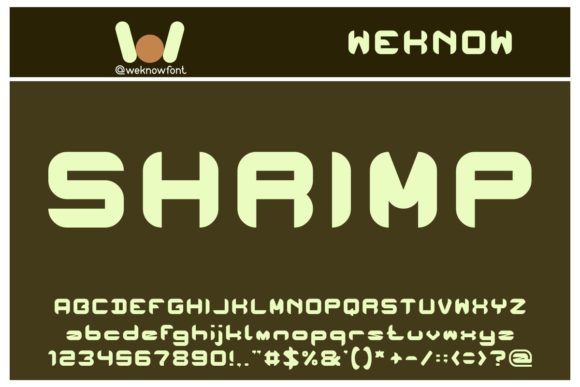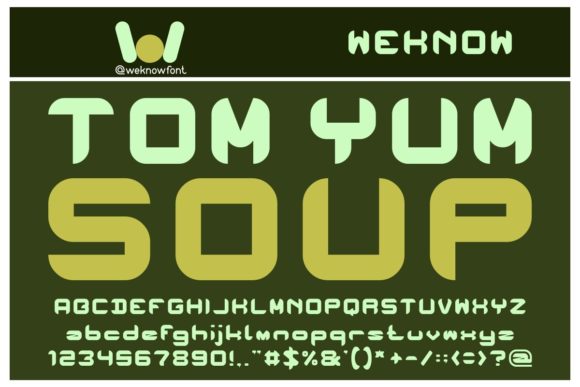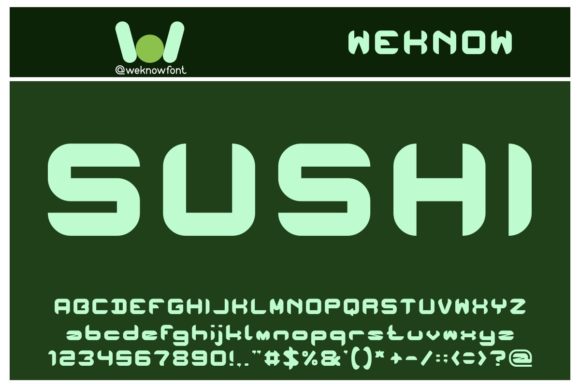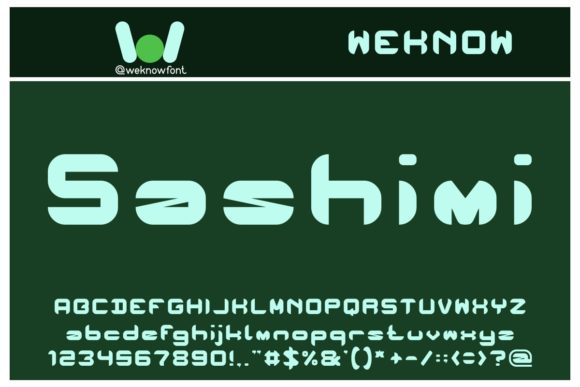
Bento Font: Elevate Your Designs with a Fancy Display Font
Are you a designer or crafter looking for a unique and stylish font to elevate your creative projects? Look no further than Bento Font, a fancy display font that’s perfect for a wide range of applications. In this article, we’ll explore the features and benefits of Bento Font, and show you how it can be used to take your designs to the next level.
What is Bento Font?
Bento Font is a modern, sans-serif display font that’s designed to make a statement. Its sleek lines, elegant curves, and sophisticated style make it perfect for use in logos, headlines, and other high-impact design elements. Whether you’re working on a corporate identity, brand identity, or personal project, Bento Font is sure to impress.
Key Features of Bento Font
- Fancy Display Font: Bento Font is designed to be eye-catching and attention-grabbing, making it perfect for use in headlines, titles, and other high-impact design elements.
- Versatile: Bento Font can be used in a wide range of applications, including logos, corporate identity, brand identity, apparel industry, posters, music, movies, games, magazines, books, comics, cartoons, YouTube, Instagram, websites, and more.
- Elegant and Sophisticated: Bento Font features sleek lines, elegant curves, and a sophisticated style that’s perfect for designs that require a touch of class and elegance.
- Easy to Read: Despite its fancy design, Bento Font is easy to read, even at smaller sizes, making it perfect for use in body text and other applications where legibility is important.
Use Cases for Bento Font
Bento Font is a versatile font that can be used in a wide range of applications. Here are some examples of how you can use Bento Font in your designs:
- Logos and Branding: Bento Font is perfect for use in logos, trademarks, and other brand identity elements.
- Headlines and Titles: Use Bento Font to create eye-catching headlines and titles that grab attention and draw the reader in.
- Posters and Flyers: Bento Font is perfect for use in posters, flyers, and other high-impact marketing materials.
- Apparel and Merchandise: Use Bento Font to create stylish and eye-catching apparel and merchandise, such as t-shirts, hats, and tote bags.
- Digital Media: Bento Font can be used in digital media, such as YouTube videos, Instagram posts, and website headers.
Tips for Using Bento Font
Here are some tips for getting the most out of Bento Font:
- Use it sparingly: Bento Font is a bold and eye-catching font, so use it sparingly to avoid overwhelming the reader.
- Pair it with a simple font: Pair Bento Font with a simple font, such as Arial or Helvetica, to create visual interest and contrast.
- Experiment with different sizes and colors: Experiment with different sizes and colors to find the perfect combination for your design.
Bento Font is a versatile and stylish font that’s perfect for designers and crafters looking to elevate their creative projects. With its elegant and sophisticated design, Bento Font is sure to make a statement in any application. Whether you’re working on a logo, headline, poster, or digital media project, Bento Font is a great choice. So why not give it a try and see how it can take your designs to the next level?